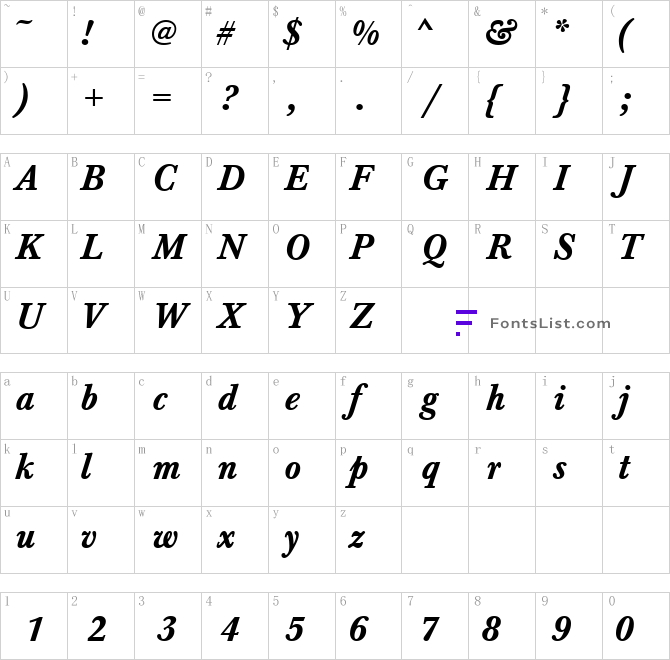
- Font Name:BaskervilleTMed
- Full Name:BaskervilleTMed Italic
- PostScript:BaskervilleT-MediItal
BaskervilleTMed-Italic.ttf is a very beautiful artistic font, BaskervilleTMed-Italic.ttf is widely used in the design and printing of various books and pictures,BaskervilleTMed-Italic.ttf has a strong visual impact,BaskervilleTMed-Italic.ttf is a commonly used font in newspapers, magazines and books, and is used in posters, e-commerce Poster design, store design, logo design, font design and other fields.BaskervilleTMed-Italic.